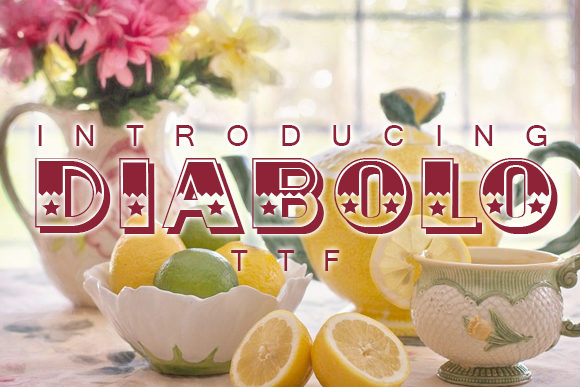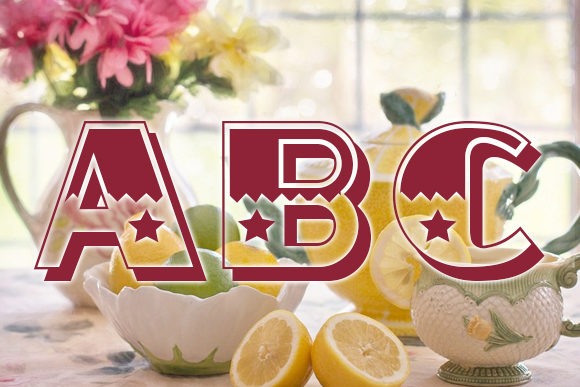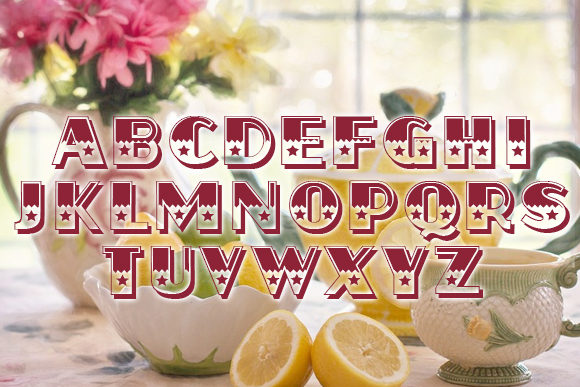
Diabolo Font: A Retro Display Font for Eye-Catching Designs
About the Diabolo Font
Unleash your creativity with Diabolo Font, a versatile font perfect for a wide range of applications. Diabolo is an awesome circus-style font that will give your designs a unique retro touch. Fall in love with its incredibly stylish look and use it to create spectacular designs!
Diabolo’s bold, playful personality makes it ideal for headlines, posters, and branding projects requiring a retro, attention-grabbing aesthetic. It works exceptionally well for short, impactful statements, creating a strong visual presence. However, its highly stylized nature makes it unsuitable for body text or UI elements where readability is paramount; long passages set in Diabolo would be difficult to read.
Consider pairing Diabolo with a clean sans-serif like Open Sans for body text to balance its playful energy with clear legibility. For a more sophisticated feel, a classic serif such as Garamond would offer elegant contrast. Alternatively, a geometric sans-serif such as Futura would provide a modern, structured counterpoint.
The font’s retro circus style is perfect for brands aiming for a vintage, fun, or slightly whimsical image, particularly those in entertainment, food, or lifestyle sectors.
Diabolo Font Usage Examples
Diabolo Font Example